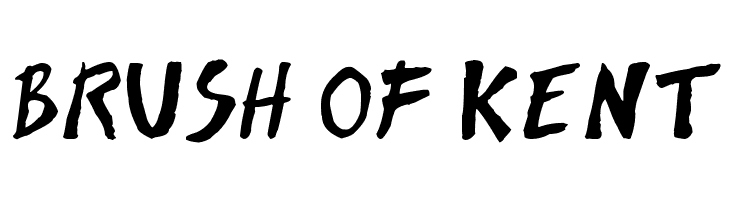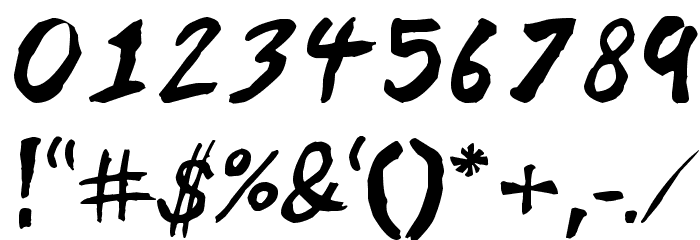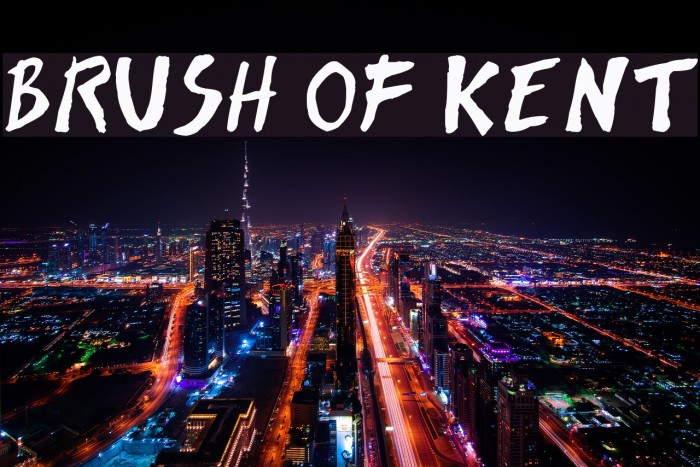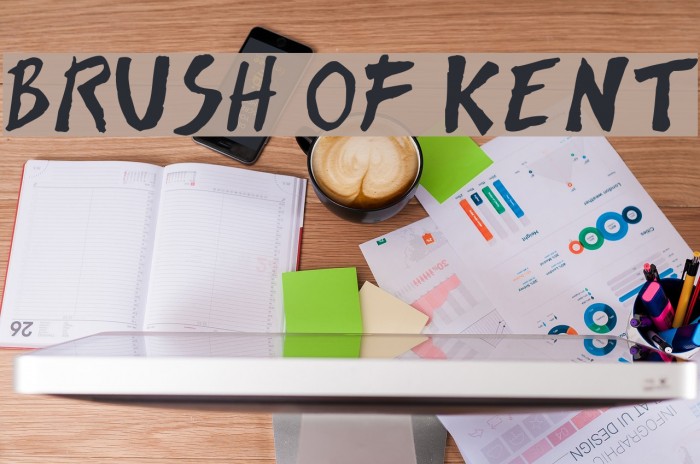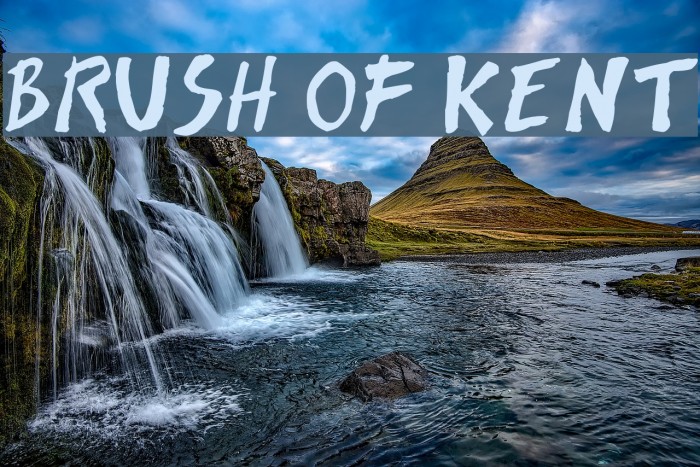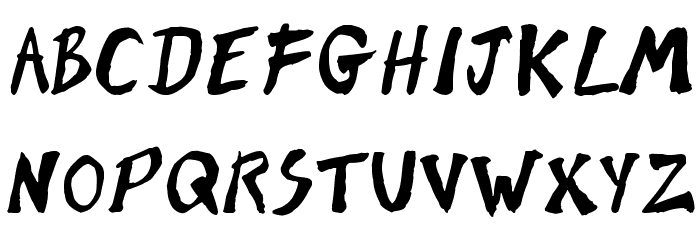
Brush of Kent Font
Brush of Kent Description
This font exudes a dynamic and expressive style, reminiscent of bold brush strokes. Each character is crafted with a sense of movement and energy, making it ideal for projects that require a personal touch. The uppercase and lowercase letters maintain a consistent flow, while the numerals and special characters complement the overall aesthetic. The strokes vary in thickness, adding a natural and organic feel to the text. This font is perfect for creating eye-catching headlines, artistic posters, and branding materials that need a touch of creativity and flair.
A bold, brush-style font with dynamic and expressive strokes from Script fonts.
- Proposed Projects: Ideal for artistic posters, branding, headlines, and creative designs.
- Use Case: Headlines, Logos, Artistic projects